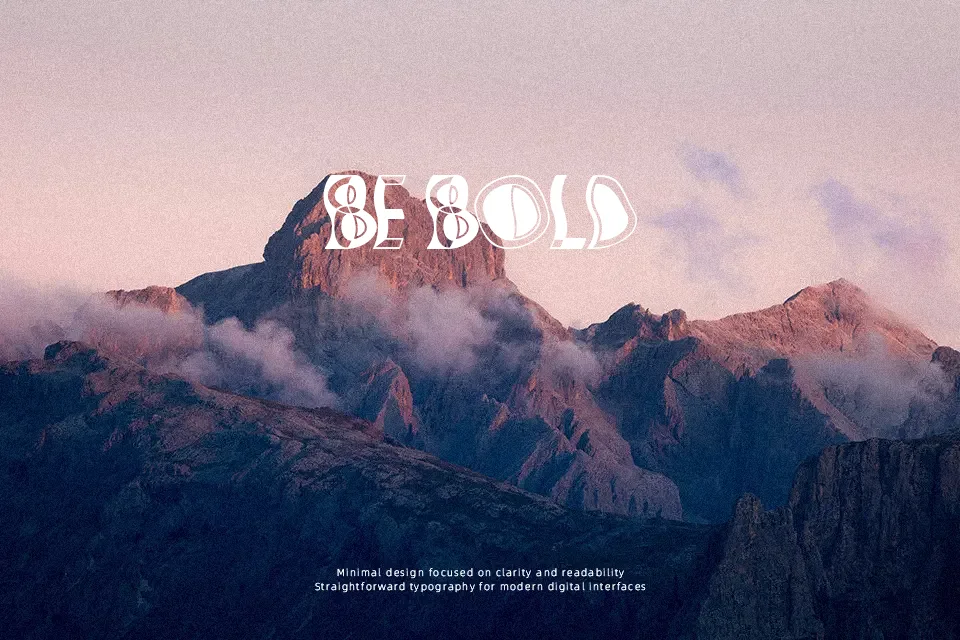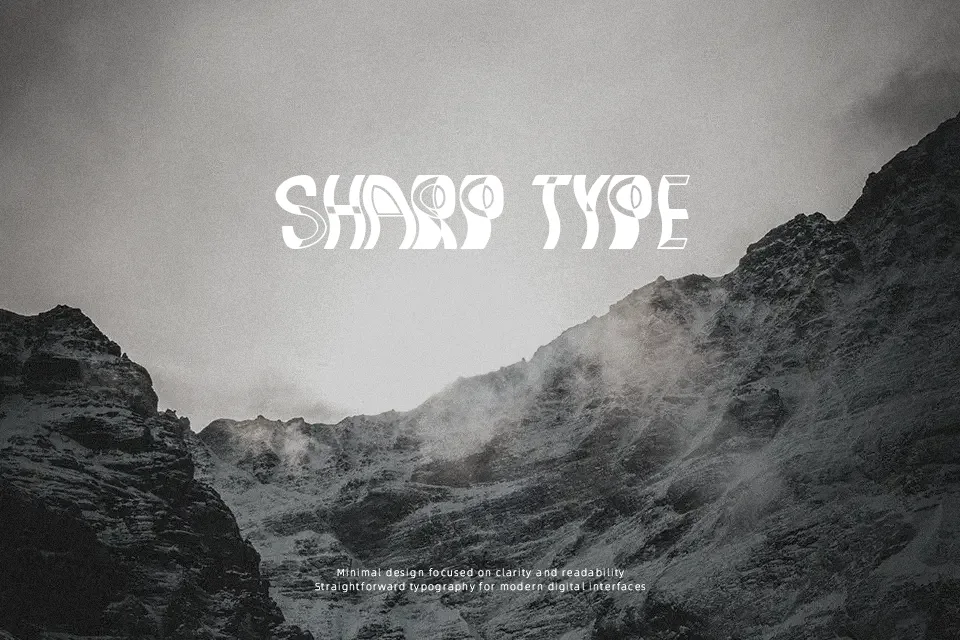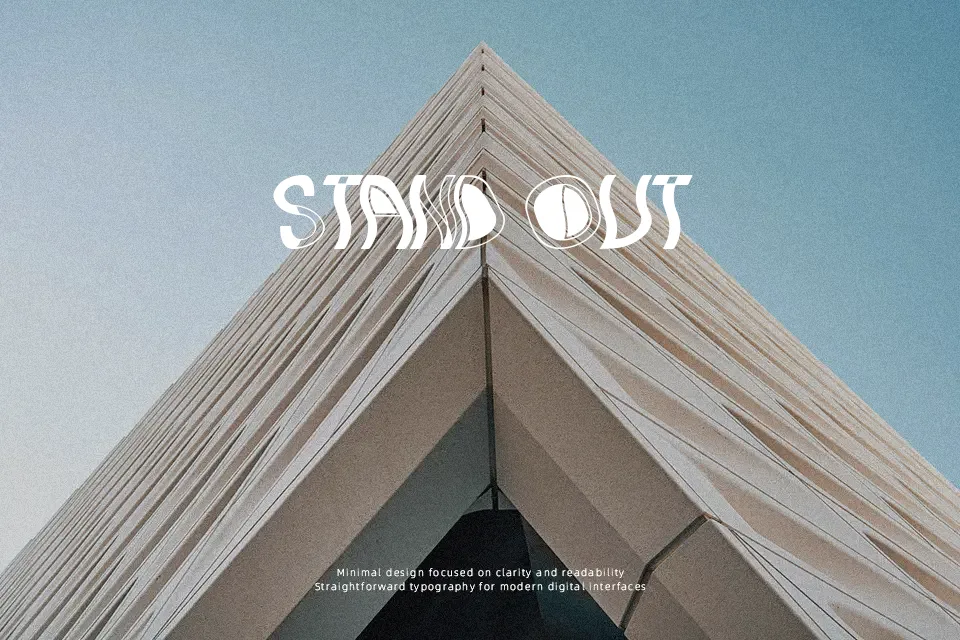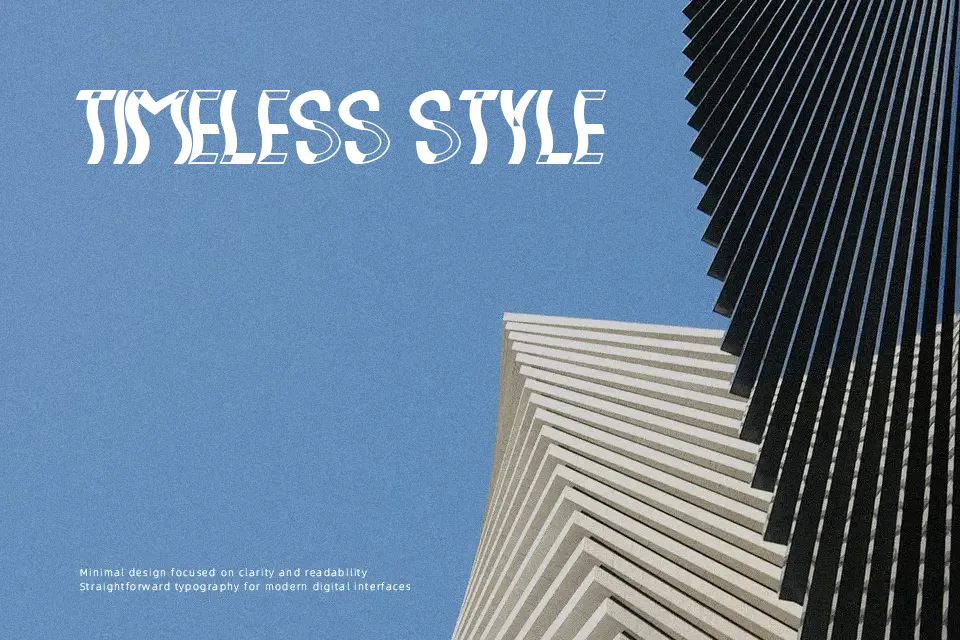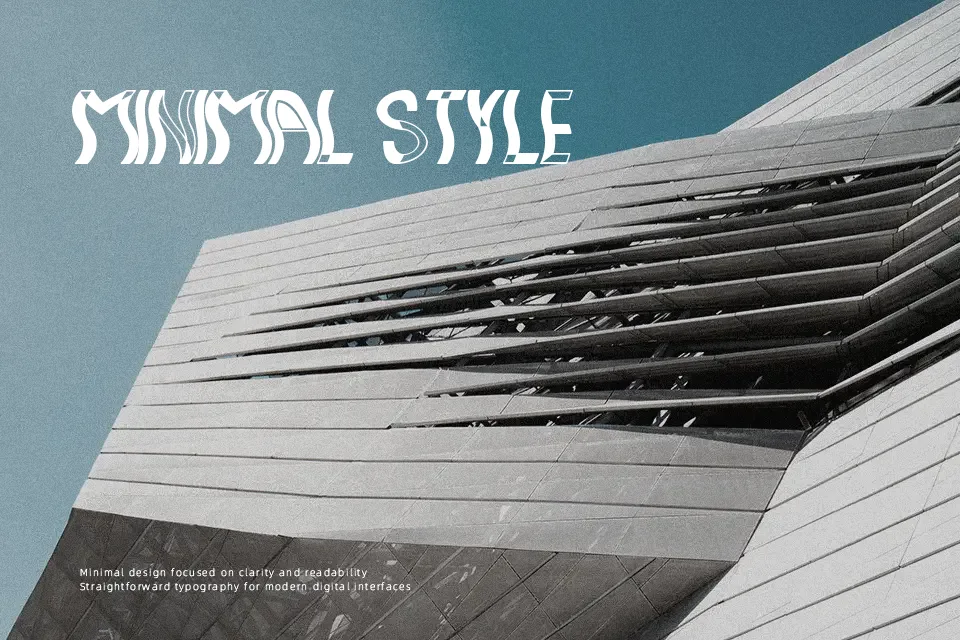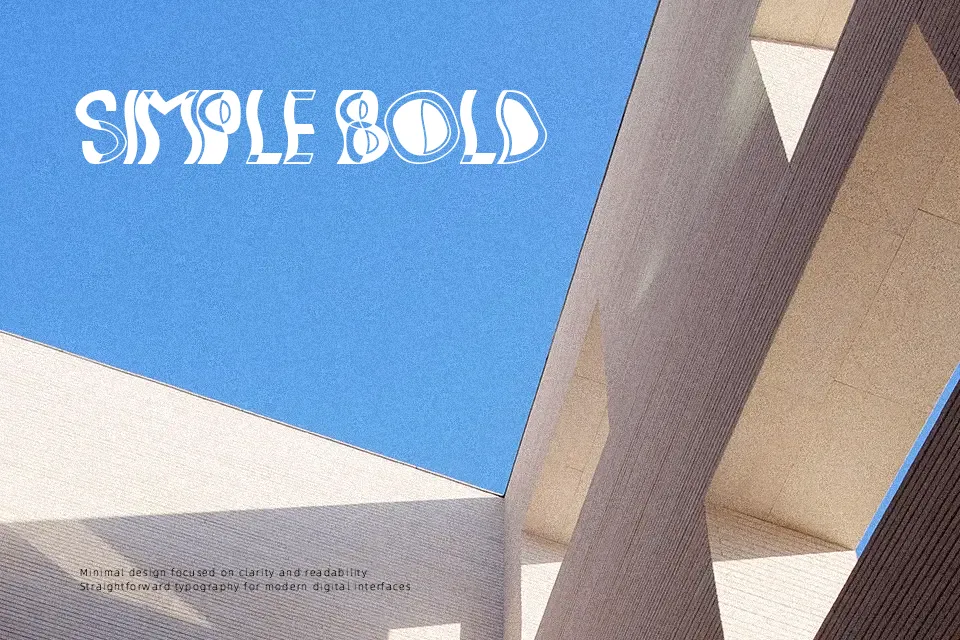
Tirahan Font
Featuring heavy strokes and unconventional silhouettes, Tirahan Font delivers an eccentric display presence rooted in abstract forms and stark contrast. The typeface balances compact spacing with expanded horizontal proportions, establishing an assertive cadence suited for festival banners, album sleeves, and custom streetwear. Bold strokes improve visibility in large posters, while deliberate asymmetry infuses each character with kinetic tension. Nevertheless, intricate interior cutouts become less effective at smaller sizes, causing character confusion below display thresholds. Consequently, the design remains unsuitable for continuous body text, dense editorial compositions, or small interface labels where clarity is paramount.
Best For: music festival posters, streetwear apparel graphics, experimental album covers
Not Ideal For: continuous body text, mobile interface labels, corporate reports
Perfect for branding, headline, and music, with a artistic and decorative style.